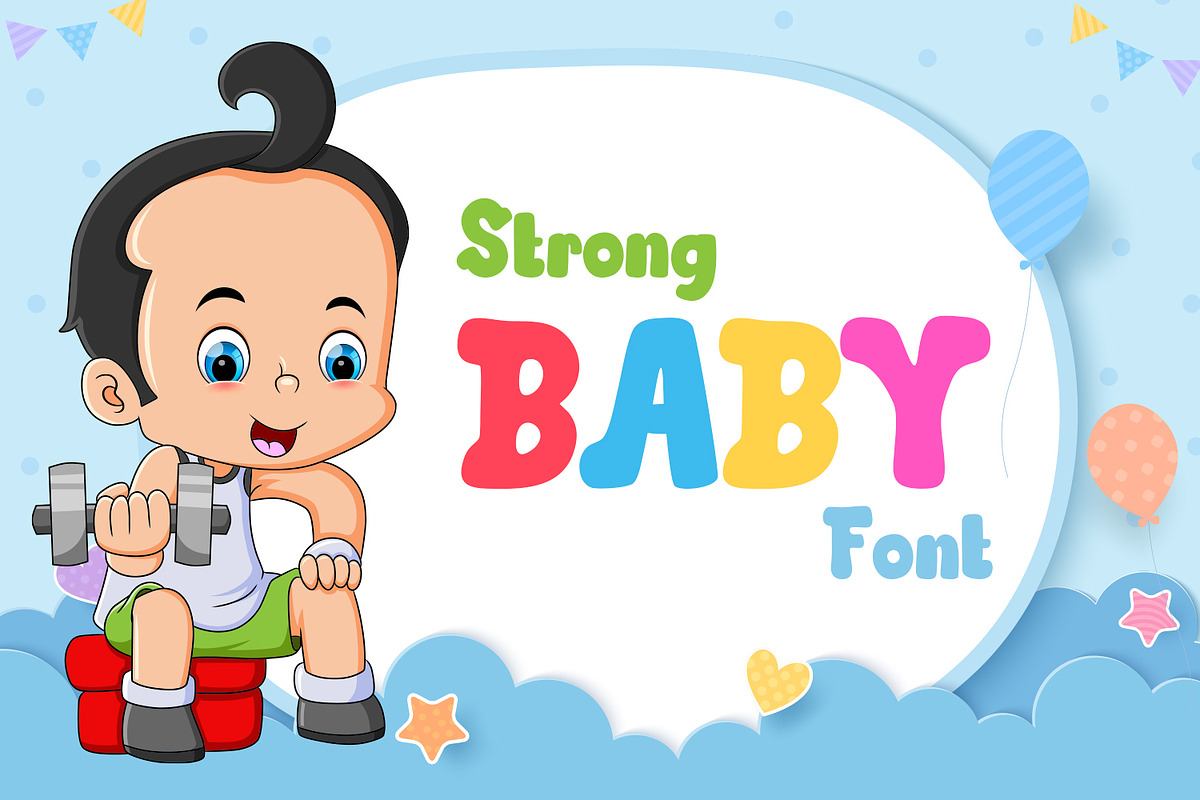
Baby Strong Font Free Download is a playful and strong typeface designed to bring a fun, bold presence to your designs. With its chunky letterforms, rounded edges, and vibrant energy, Baby Strong is perfect for children's projects, playful branding, posters, social media graphics, and merchandise.
This font balances boldness and friendliness, making it ideal for creating logos, book covers, event invitations, and educational content that need a lively, approachable feel. Whether you're designing for a toy brand, a kids’ event, or a creative project, Baby Strong adds personality and a cheerful vibe to your typography.